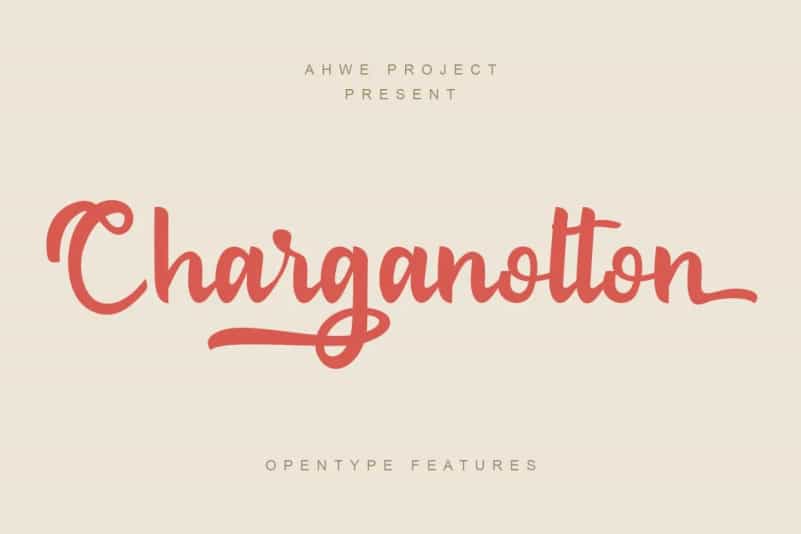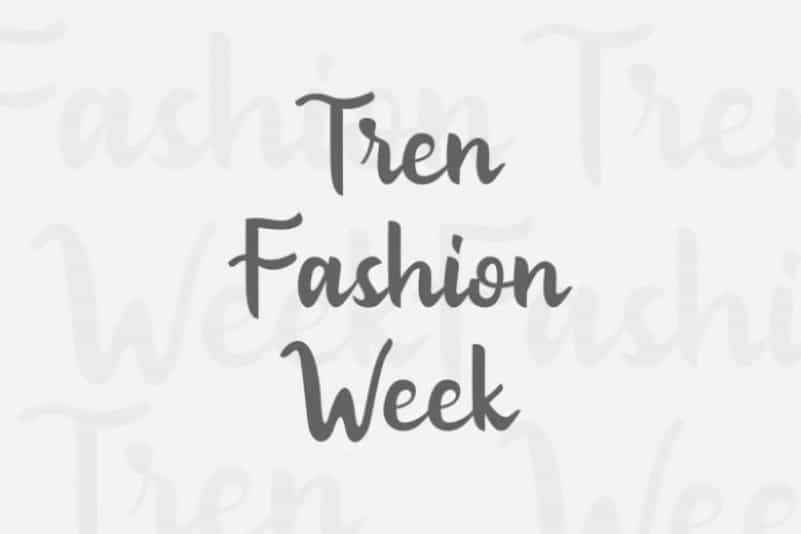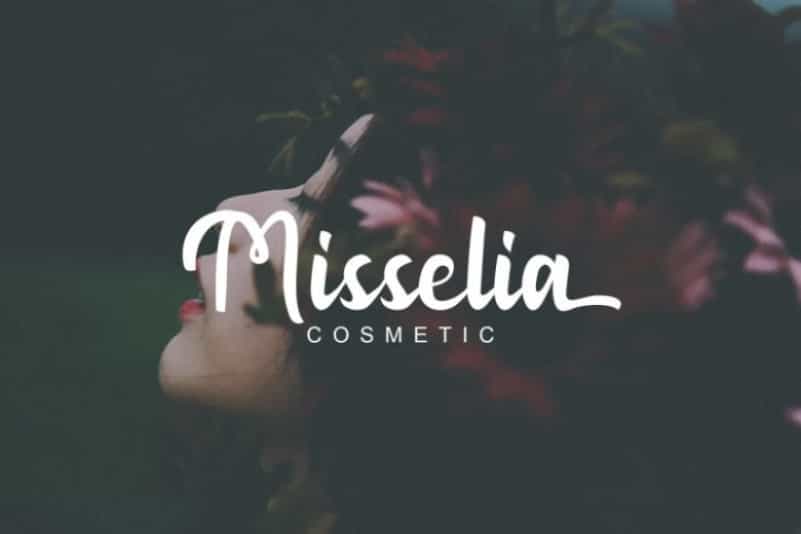
Discover Charganolton Font, part of the Brush Calligraphy Handwritten collection—a versatile and unique font perfect for adding a personal touch to your projects. Download it for free and enjoy crafting designs with style, from invitations to social media posts. This font is available exclusively for personal use, giving you the freedom to create without limits. Unlock your creativity with Charganolton Font today!
Charganolton Font with a calligraphy style, Perfect for the invitation like greeting cards, branding elements, business cards, quotes, posters, and so on!